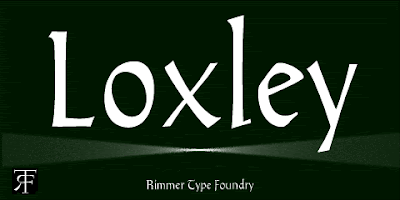
Jim Rimmer's Loxley font
Loxley was one of two type styles drawn and digitized by Jim Rimmer shortly before he died on January 8, 2010. (The other style to be named "Rimmer", will be released at a later date.)
Loxley was designed to be used in a fine press edition of the classic folklore story of "Robin Hood". The town of Loxley, Sheffield is cited as the birthplace of Robin Hood. This project was to be a follow up for Jim's epic edition of Tom Sawyer for which he designed the typeface Hannibal, named after the Missouri town that was the birthplace of Mark Twain.
The style of Loxley is based on early Roman faces, such as the Subiaco typeof the late 1400s that was also inspirational to Frederick Goudy for his Franciscan, Aries and Goudy Thirty type faces. Loxley displays some of Jim's particular left handed calligraphy and is in a similar style to his Fellowship and Alexander Quill faces, both of which were made in metal and digital formats.
The metal font and book were never realized. As per Jim's wishes, P22 type foundry finished the digital type and all proceeds from the sale of this font will be put towards the completion of the documentary Making Faces. This film documents Jim's process for making metal typefaces. The footage was shot in 2008 during the making of the Stern typeface.
RTF Loxley is a basic Opentype font with Central European characters, a few f ligatures and alternate caps of the A, H, K, R, and T. $19.95